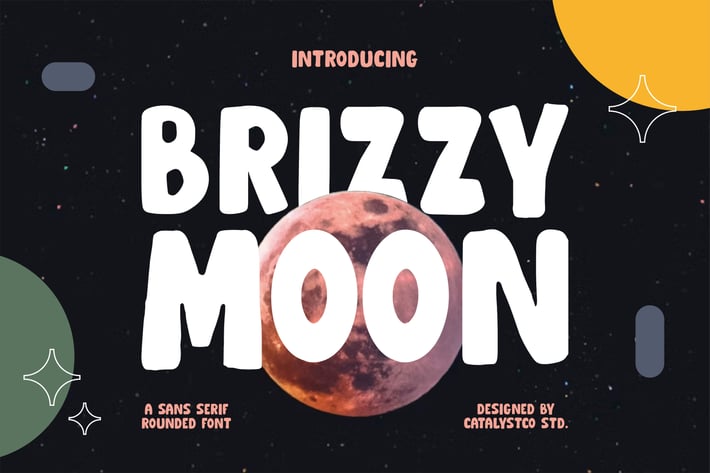
Brizzy Moon Sans Serif Rounded Font
Brizzy Moon is a playful rounded sans serif display font inspired by bubbly shapes and soft hand-drawn forms. Its thick curves, smooth outlines, and cheerful character design create a warm and friendly look suitable for creative projects. The font offers uppercase, lowercase, numbers, and punctuation, all crafted with a fun and expressive personality. Perfect for designers who want a bold, approachable style with a charming visual impact.
Brizzy Moon is perfect for kids branding, playful packaging, cartoon titles, school projects, children’s books, fun logos, celebration designs, creative posters, social media graphics, and any project that needs a cute, soft, and joyful visual style.